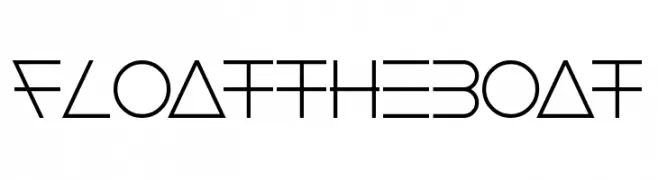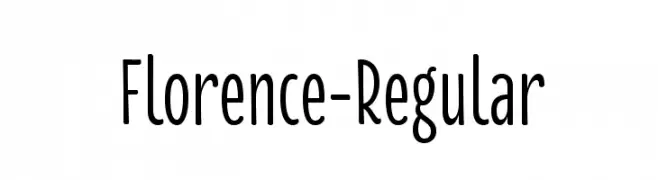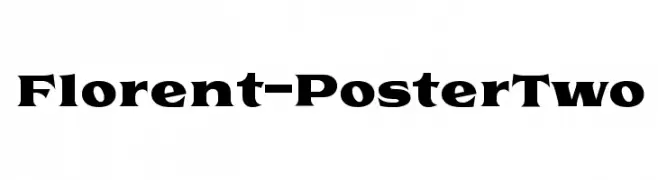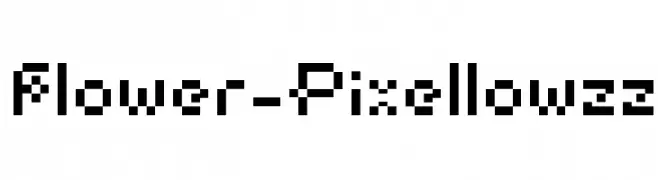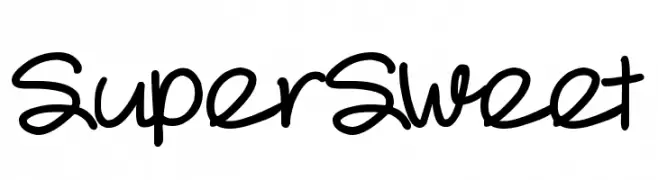
( Chequered Ink - chequered.ink/ )
A modern, geometric font with clean lines and angular shapes.
( Darrell Flood )
A bold, expressive script font with dynamic, interconnected characters.
( Darrell Flood )
A bold, expressive handwritten font with a graffiti-like style.
( Darrell Flood )
A bold, playful font with rounded, bubbly characters and a retro vibe.
( Darrell Flood )
A bold, energetic handwritten font with expressive strokes and a playful aesthetic.
( Darrell Flood )
A playful, handwritten font with a casual and friendly style.
( Darrell Flood )
A bold, handwritten font with a playful and friendly style.
( Jeallowzz Ishikawa - warugaki-themes.tumblr.com )
A pixelated, retro-style font with a blocky, digital appearance.
( Sascha Timplan - blog.stereotypes.de )
A modern, clean sans-serif font with a slightly condensed style.
( Studio Sun - Cahya Sofyan - www.behance.net/studiosun )
A bold, impactful font with strong strokes and sharp edges.